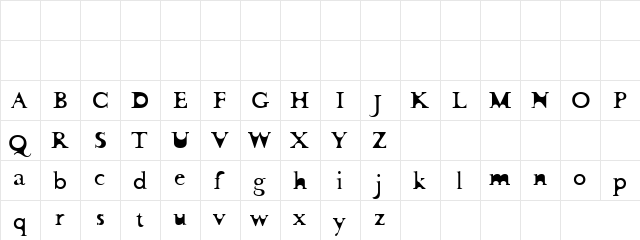
Luv Garden Regular
Design Context for Luv Garden Typeface
Luv Garden is a composed and adaptable typeface that performs quietly and consistently across a wide range of design contexts.